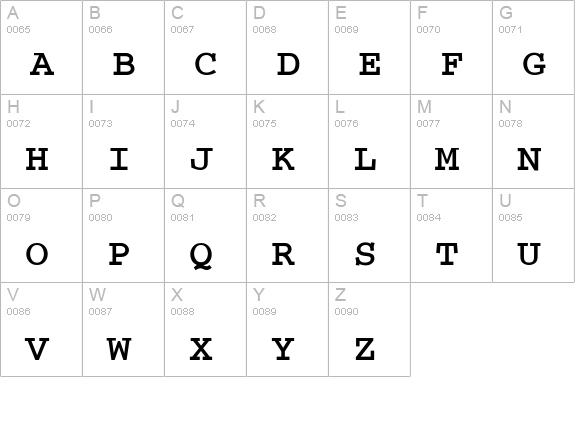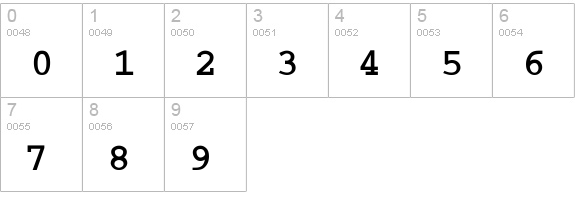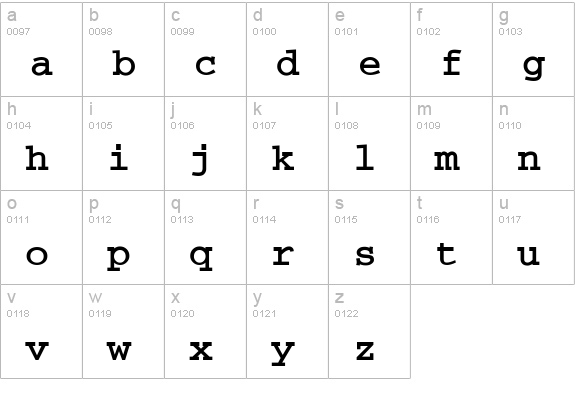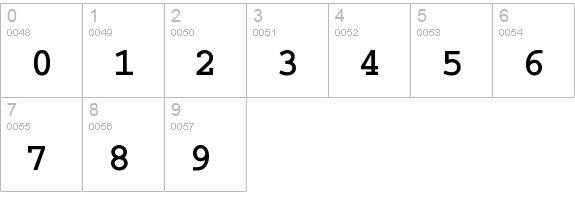
Bouvian-Bold-a Font Details
Bouvian-Bold-a is a strong, high-contrast variant in the Bouvian typeface family \xE2\x80\x94 well suited to headlines, attention-grabbing titles, and strong calls-to-action.
Introducing Bouvian-Bold, a sophisticated and versatile font that exudes elegance and modernity. This striking typeface is perfect for a wide range of design projects, from branding to marketing materials, thanks to its bold and distinctive appearance. Bouvian-Bold commands attention with its strong, clean lines and balanced letterforms, making it a go-to choice for designers seeking to make a bold statement. What sets Bouvian-Bold apart is its seamless blend of classic and contemporary design elements, resulting in a font that is both timeless and on-trend. Whether used for headlines, logos, posters, or websites, Bouvian-Bold adds a touch of sophistication and professionalism to any project. And the best part? Bouvian-Bold is available for free download at FontsMarket.com, making it easily accessible for designers and creatives looking to elevate their work with a high-quality font. Don't miss out on this opportunity to enhance your designs with the stylish and versatile Bouvian-Bold font.